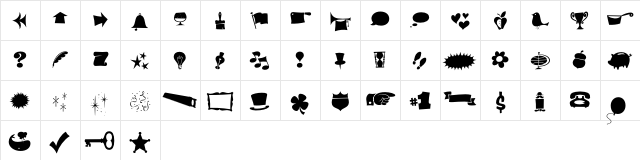
EdPS Bengbats
Design Context for EdPS Typeface
EdPS is a composed and adaptable typeface that performs quietly and consistently across a wide range of design contexts.